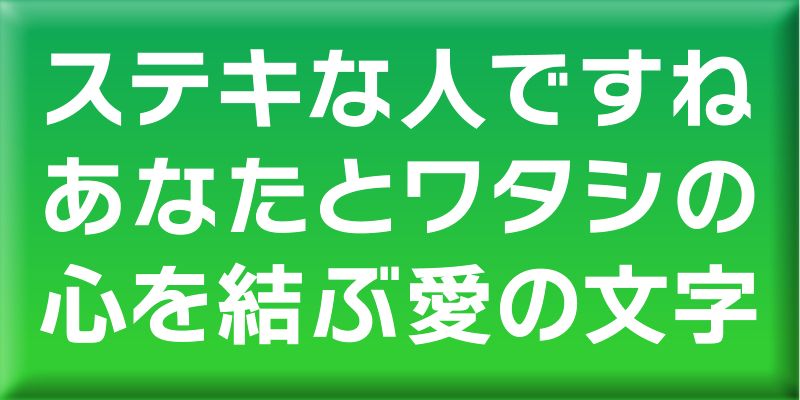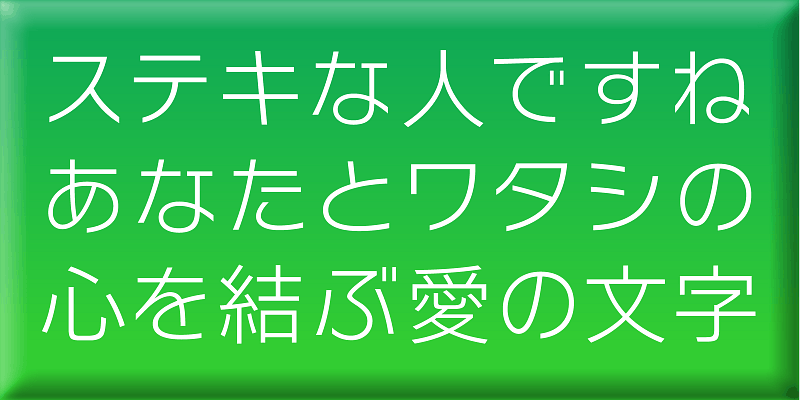
This typeface has kana characters whose strokes have clean horizontal or vertical cuts at the ends and kanji ideographic characters with a calm nature. It creates stylish and sophisticated typeset results. Its larger katakana characters make text more legible and readable.
Through typeface designs, we aim to convey a meaning beyond the textual content. Typefaces that allow users to clearly convey their full meaning. Typefaces that both typesetters and readers will enjoy. These are the kind of typefaces that we aim to create.